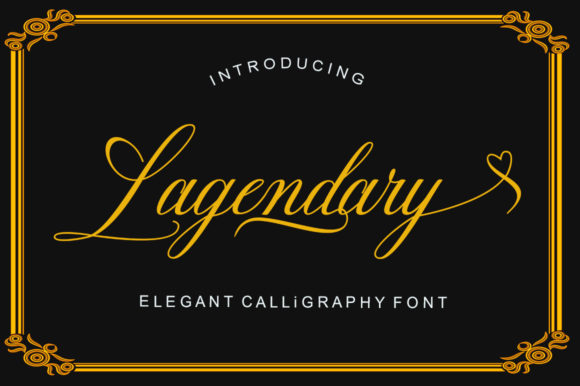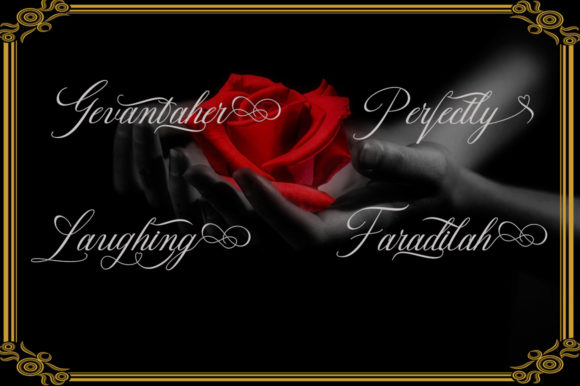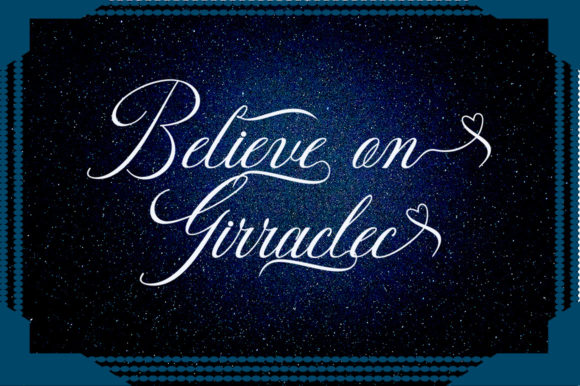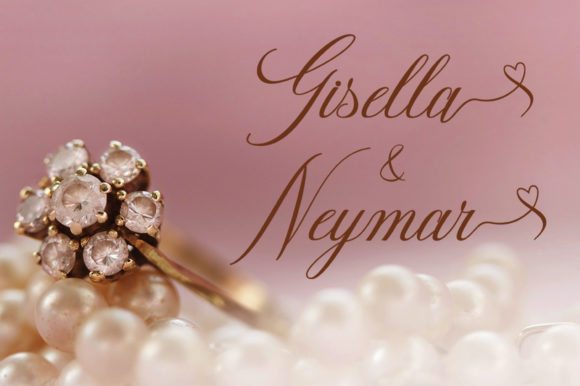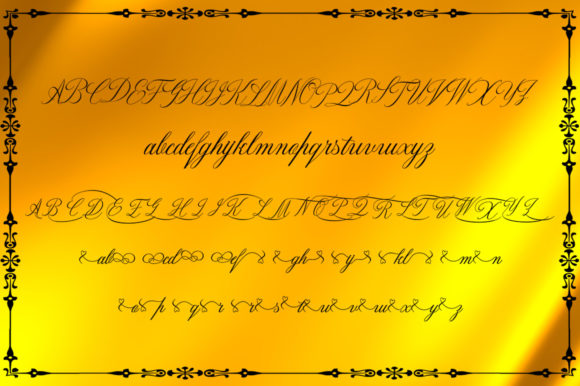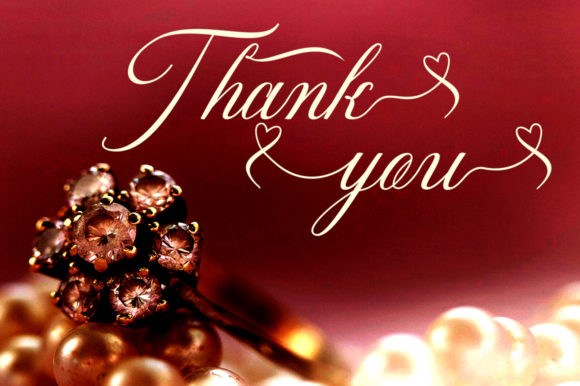
Lagendary Font
About Lagendary Font
The Lagendary is a modern calligraphy font. It includes amazing handwriting and awesome calligraphy creations.
It can be used for logos, wedding invitations, titles, signatures, t-shirts, letterheads, and much more!